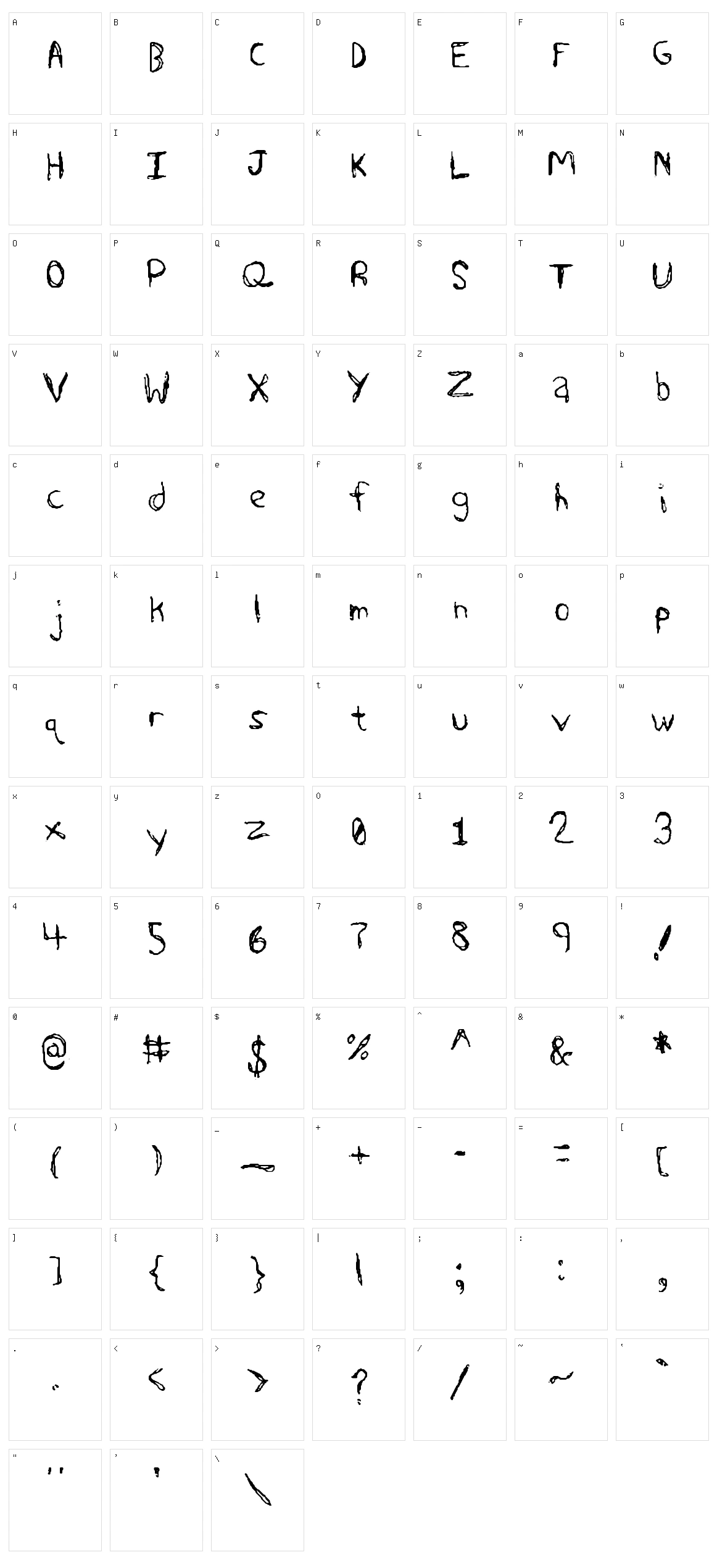
The free font Sharkscribble is carefully designed by Zach Willard, showcasing a thoughtful balance of creativity and usability and falls under the Script font style. When you download the ZIP file, it contains only 13.07 KB of font files, making it lightweight and quick to download. Please review the license details below to understand permitted usage and distribution rights. If license information is not available, we recommend using this font for personal projects only or contacting the author directly for commercial usage permissions.